Looking at last month’s data, it’s clear that elegant and vintage-style fonts were the most popular. These timeless designs with a modern twist are still the top choice for many designers—perfect for branding, packaging, and editorial projects.
Aqualim Signature, when classic of serif meets the elegance of script. This duo font bring the aesthetic of classy and luxury look so its perfectly suit for headline, logo, covers, posters, quotes, magazine, wedding, product packaging, merchandise, social media, marketing materials and many more!
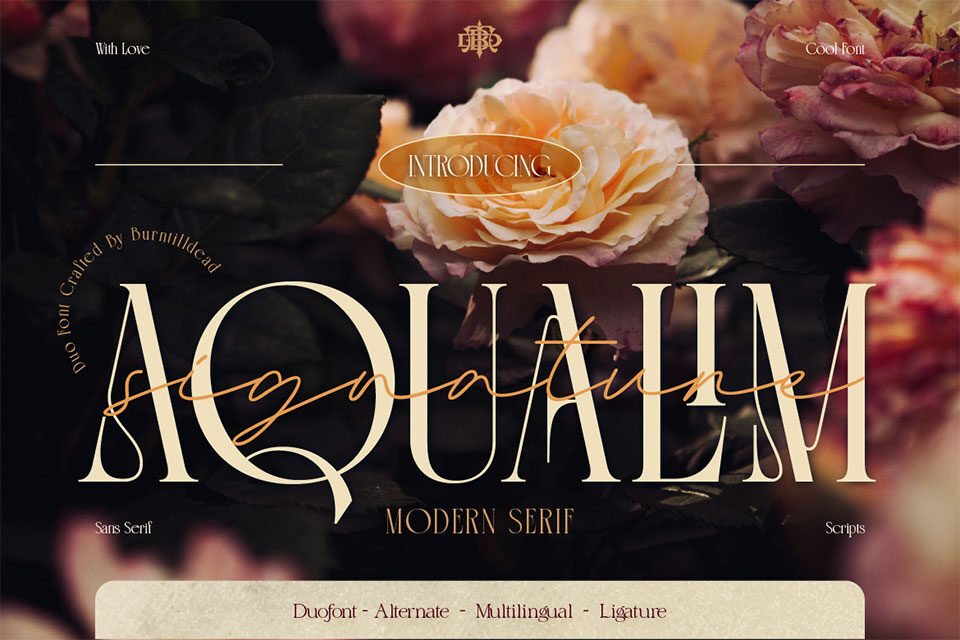
Falsome, a stylish serif typeface that blends classic charm with modern elegance. Crafted with high attention to detail, with its unique ligatures and alternates. Falsome is the perfect choice for luxurious branding identity, wedding invitations, fashion editorials, or elegant packaging.
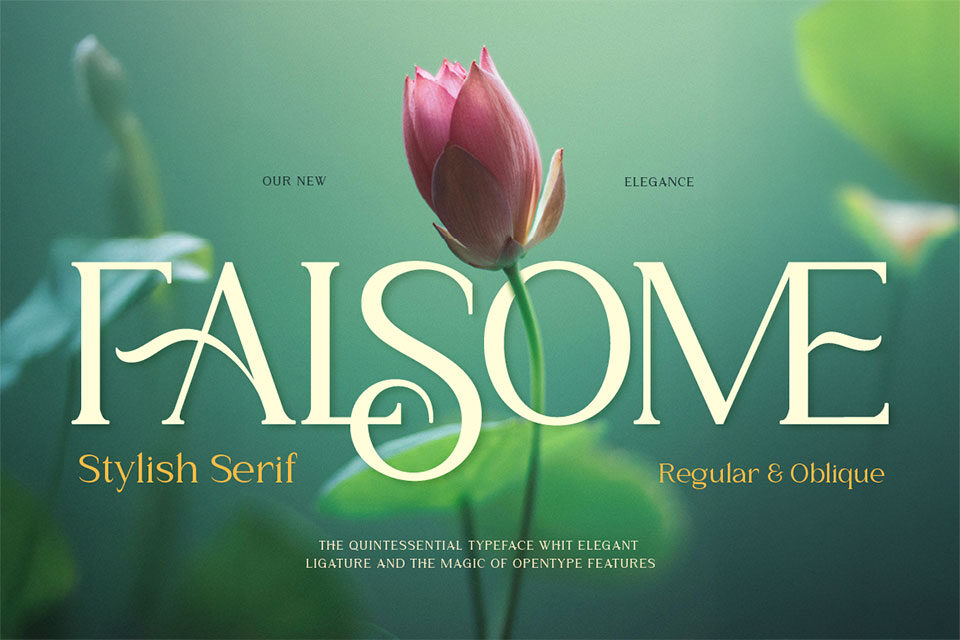
Charoly Signature, a harmonious blend of classic elegant serif with charm of script. This duo font creating stunning combination that works effortlessly across both print and digital design project. Whether you’re designing for Christmas, weddings or any special occasion. Ideal for invitation, greeting cards, branding and many more.
Have you ever imagine to make layered Victorian logo as fast as you blink your eyes? or even make your document and website with victorian classical vibes? Abracadabra! Introducing you opentype font… King Edward and Queen Victoria fonts in one solid package.
Very victorian, ornamental, decorative and classical. A solid combination that can bring your design, logo, document, website, etc. back to 1800 decade. Multilingual fonts-family and playful one with 200 alternate characters.
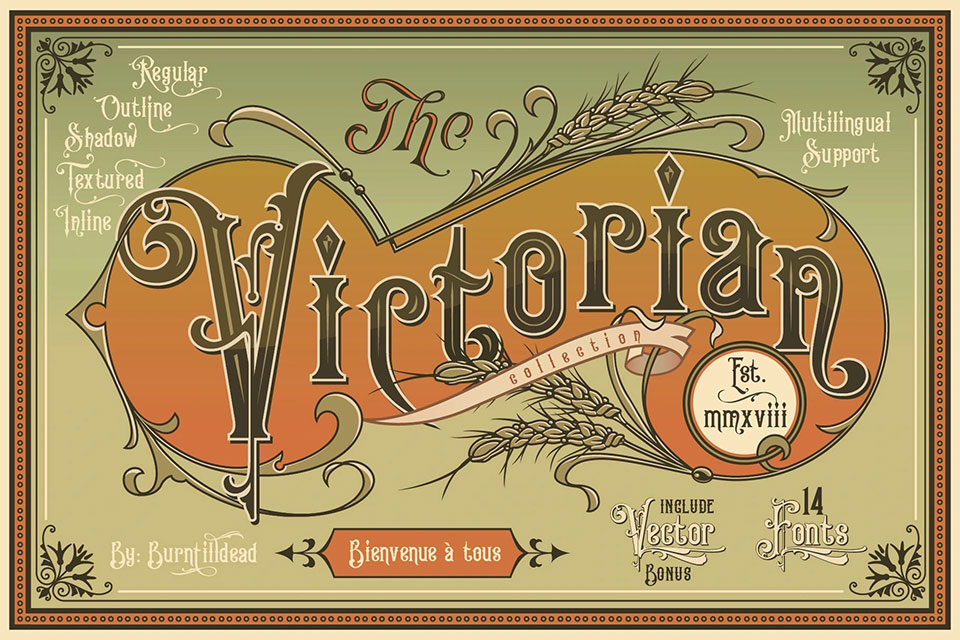
Our modern condensed sans-serif font – Kondenton. This sans serif font offers a trendy, modern and minimalist design with clean lines and three weight (light, medium and bold). Kondenton perfectly for anyone looking for clean and modern look such as headlines and titles, infographics, web design, logo types, branding, magazine and so on.